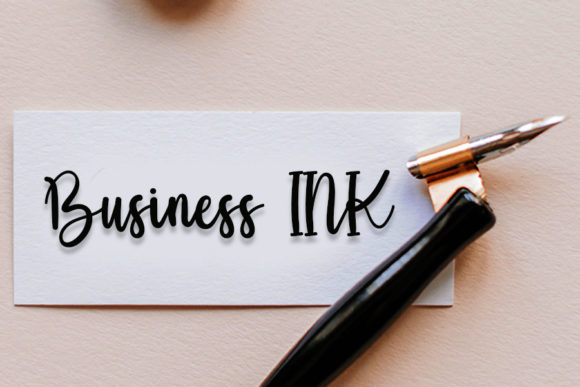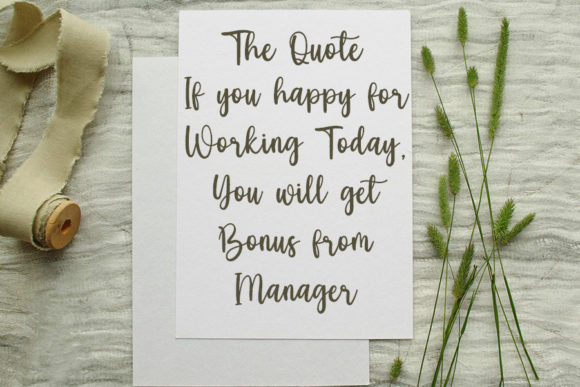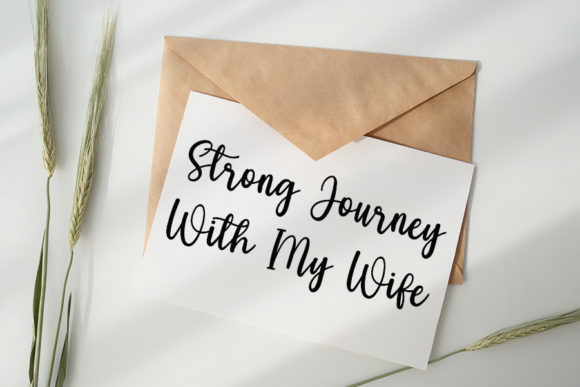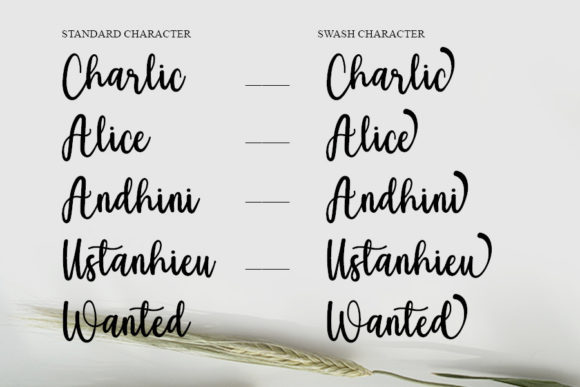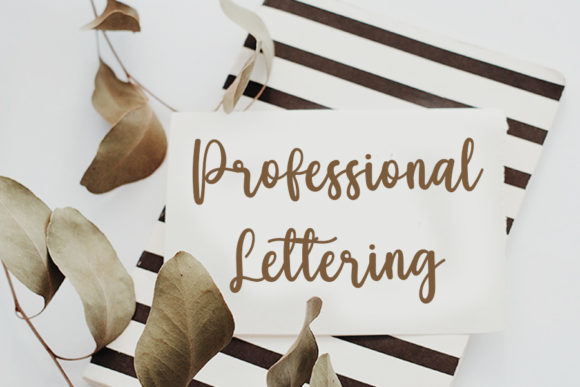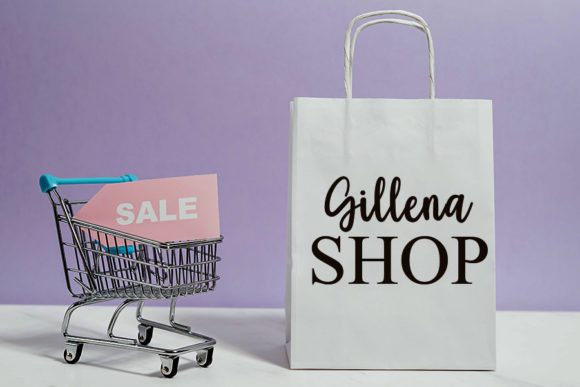
I still remember the time I was working on a wedding invitation project, and my client asked me to create a custom design that exuded elegance and sophistication. I spent hours scouring through font libraries, but nothing seemed quite right. That was until I stumbled upon Advanced, a beautiful calligraphy font that has since become a staple in my design toolkit.
What is Advanced Font?
Advanced is a stunning calligraphy font that boasts a modern look, making it perfect for a wide range of design projects, from branding and invitations to stationery, wedding designs, social media posts, and more! Its versatility and beauty have won the hearts of many designers, and I’m excited to share my experience with you.
What I Love About Advanced Font
• ✨ Elegant and modern design that’s perfect for high-end projects
• 🎉 Extensive character set, including OpenType features and glyphs
• 👍 Well-suited for both digital and print projects
While Advanced is an exceptional font, there are a few minor quirks to be aware of:
• 🤔 Some users may find the font a bit too condensed for certain design applications
• ⚠️ Limited availability of certain special characters
The Story Behind Advanced Font
Advanced font was designed by a team of typographers who aimed to create a modern calligraphy font that would meet the needs of contemporary designers. Inspired by traditional calligraphy techniques, the font features a unique blend of elegance and sophistication.